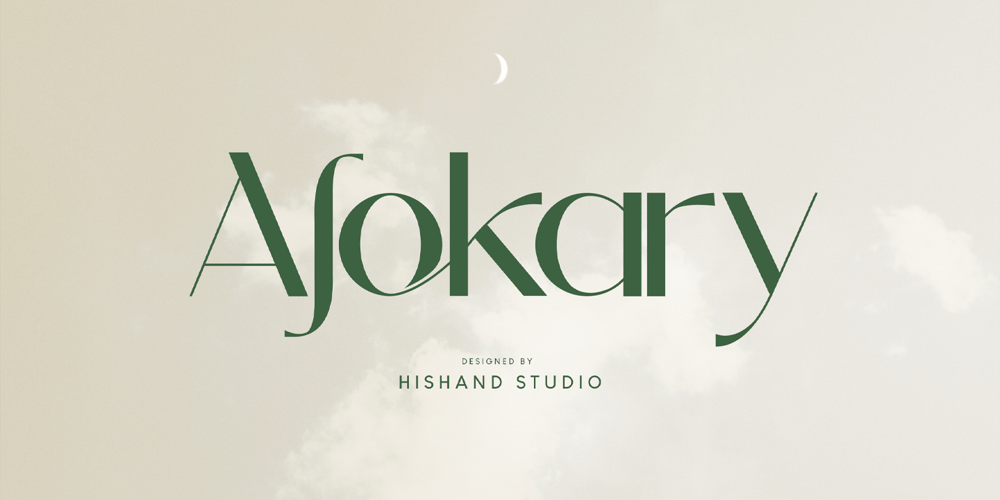
Alokary
Alokary font
Alokary Font Family was designed by Putu Dody Permana and published by Hishand Studio. Alokary contains 3 styles and family package options. Alokary is aesthetic sans serif typeface that look elegant and timeless inspired by beige and forest green color, it is Perfect for Logo brand, marketing material, advertisement, product packaging, social media post, clothing or fashion brand, magazine headers and many morecomplete withligaturesalternatesregularitaliciconkerningmultilingual support